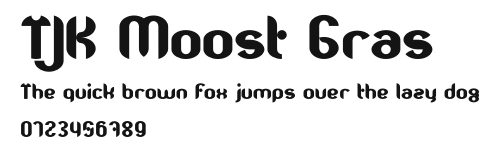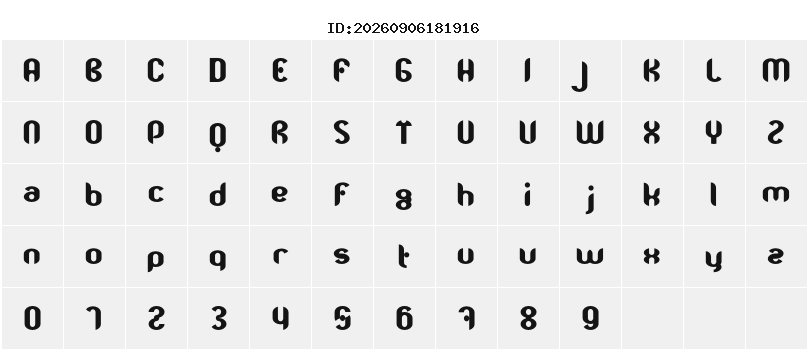
• Font Name: TJK Moost Gras
• Full Font Name: TJK Moost Gras
• Designer: T. GRIMAUD
About TJK Moost Gras.otf
TJK Moost Gras.otf is a modern, elegant sans-serif font designed for ultimate readability and visual harmony. Perfect for branding, headlines, web design, and print materials.